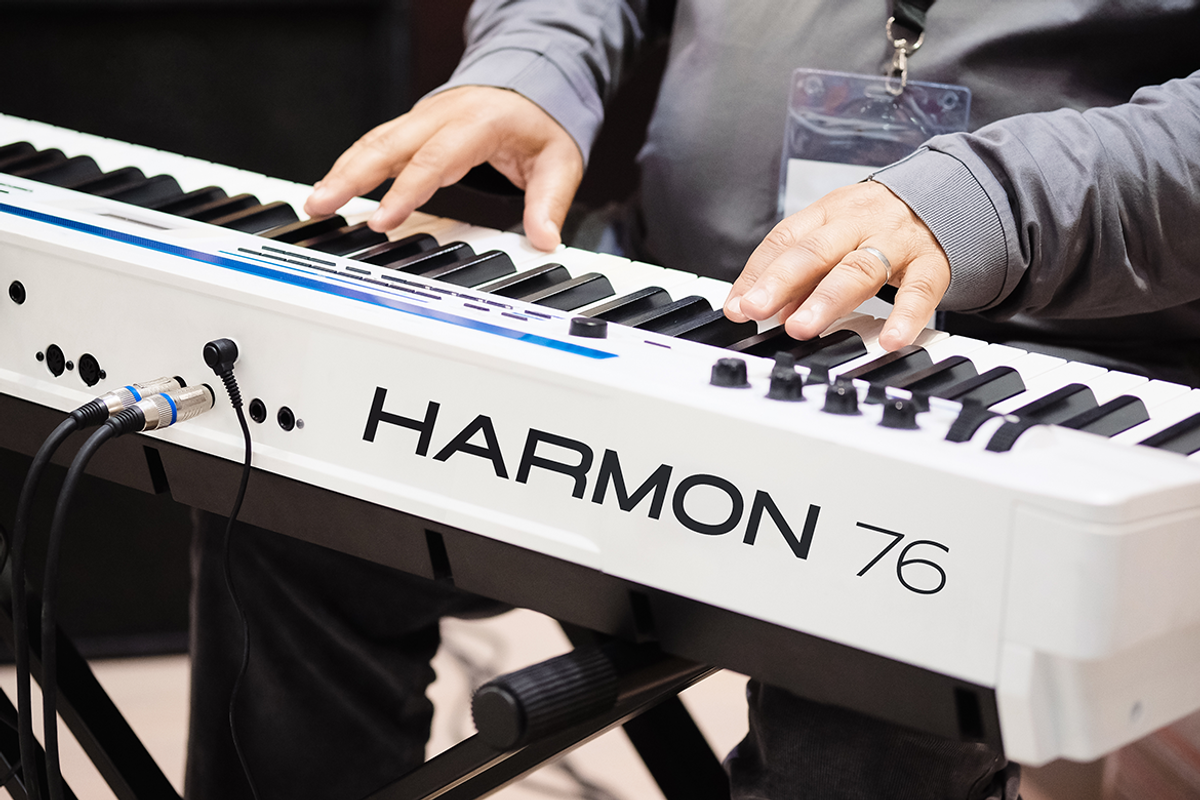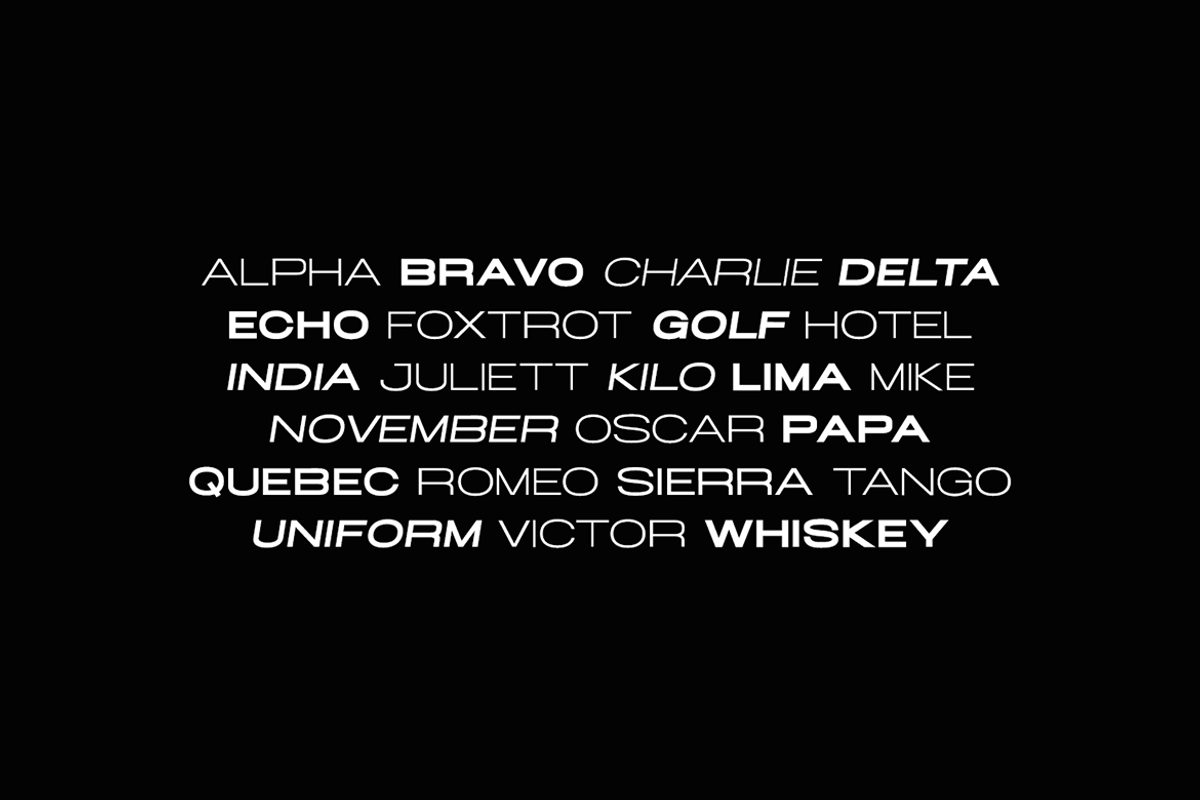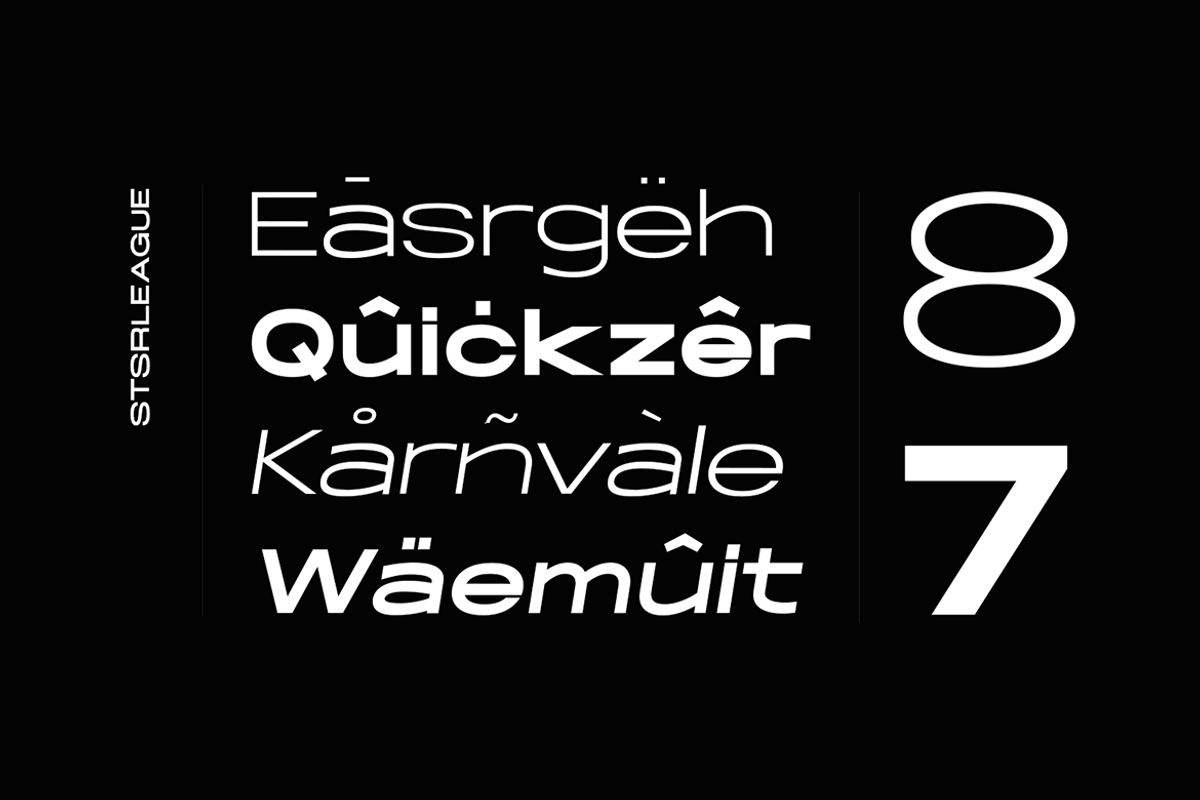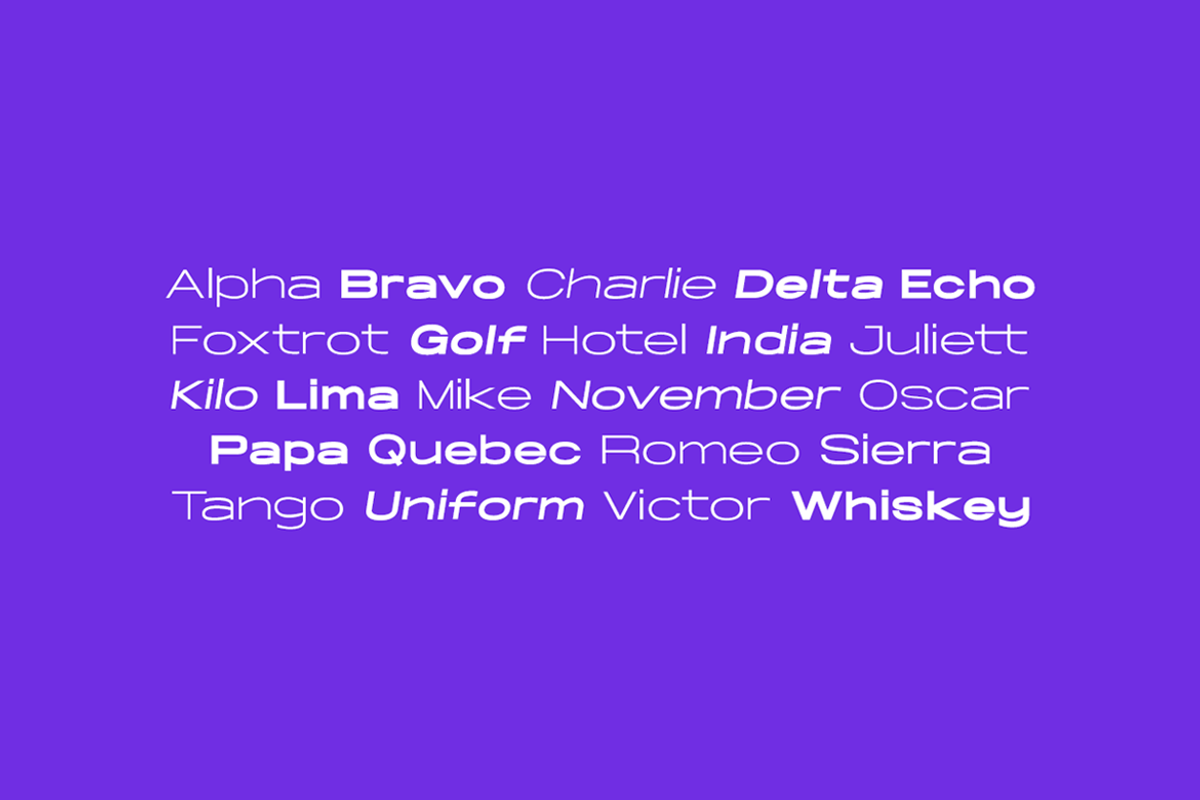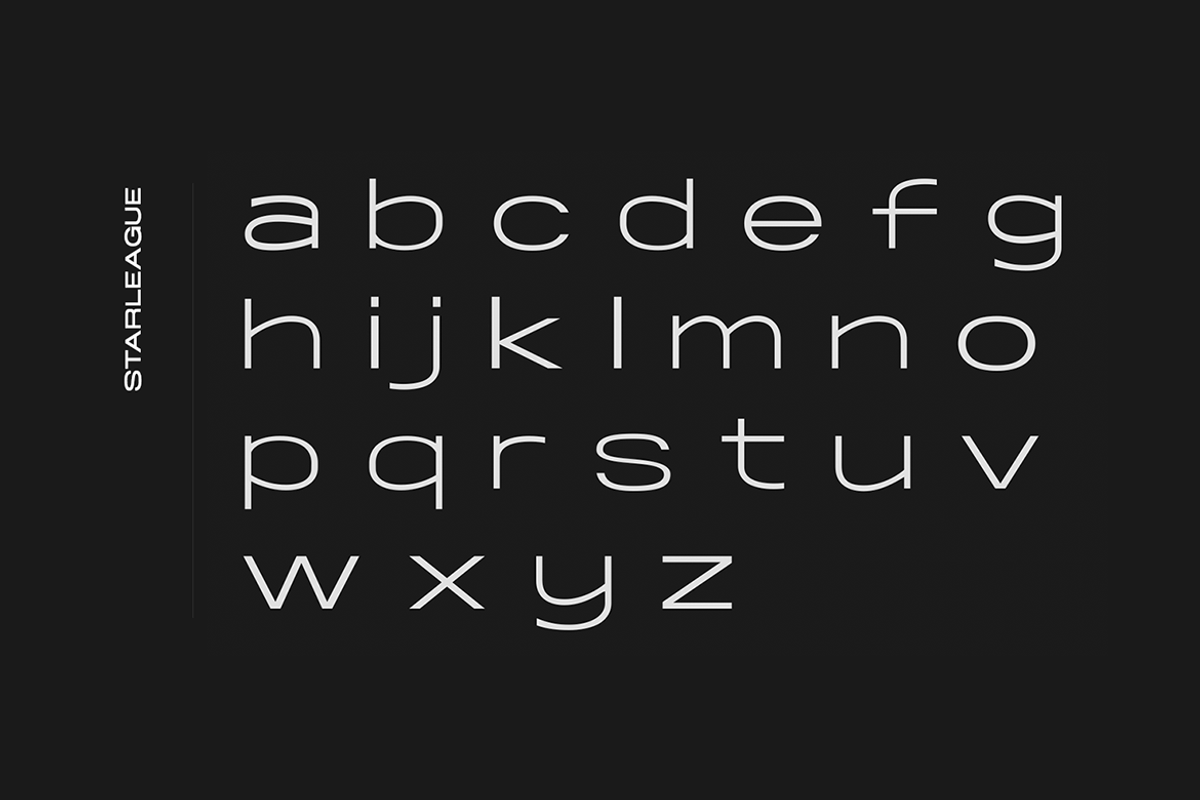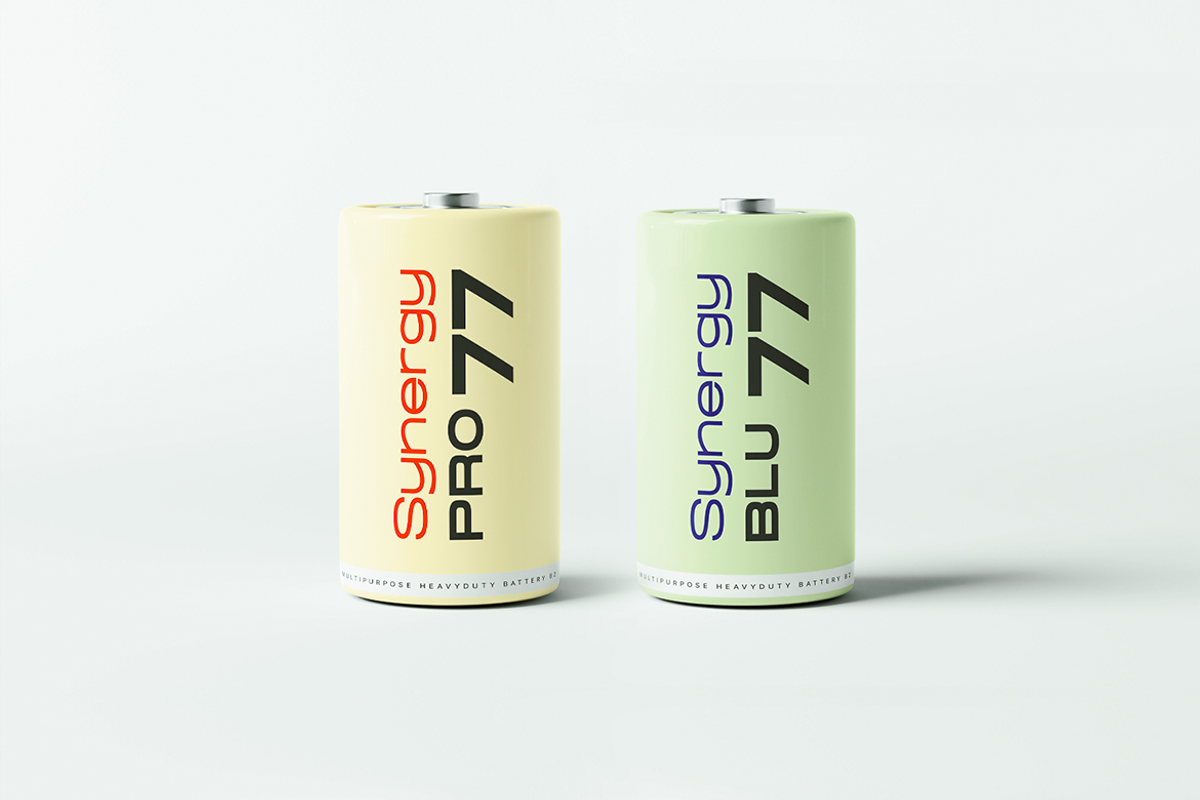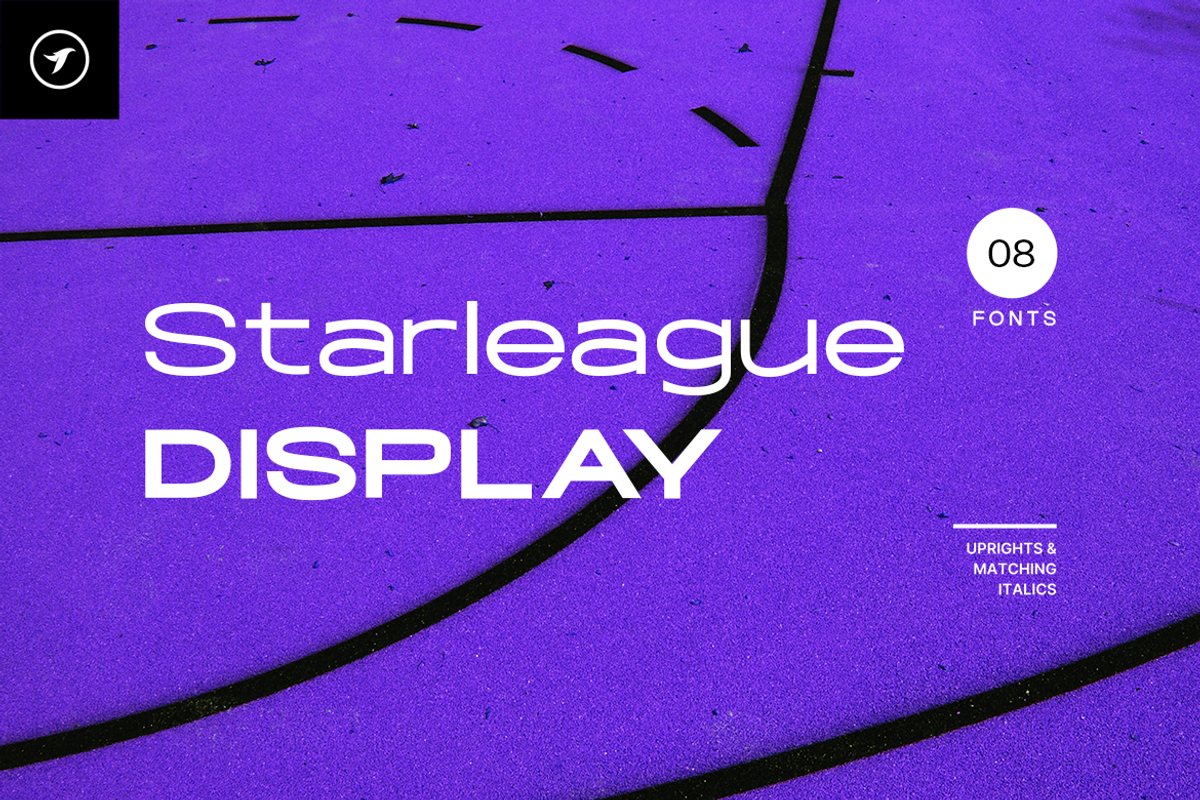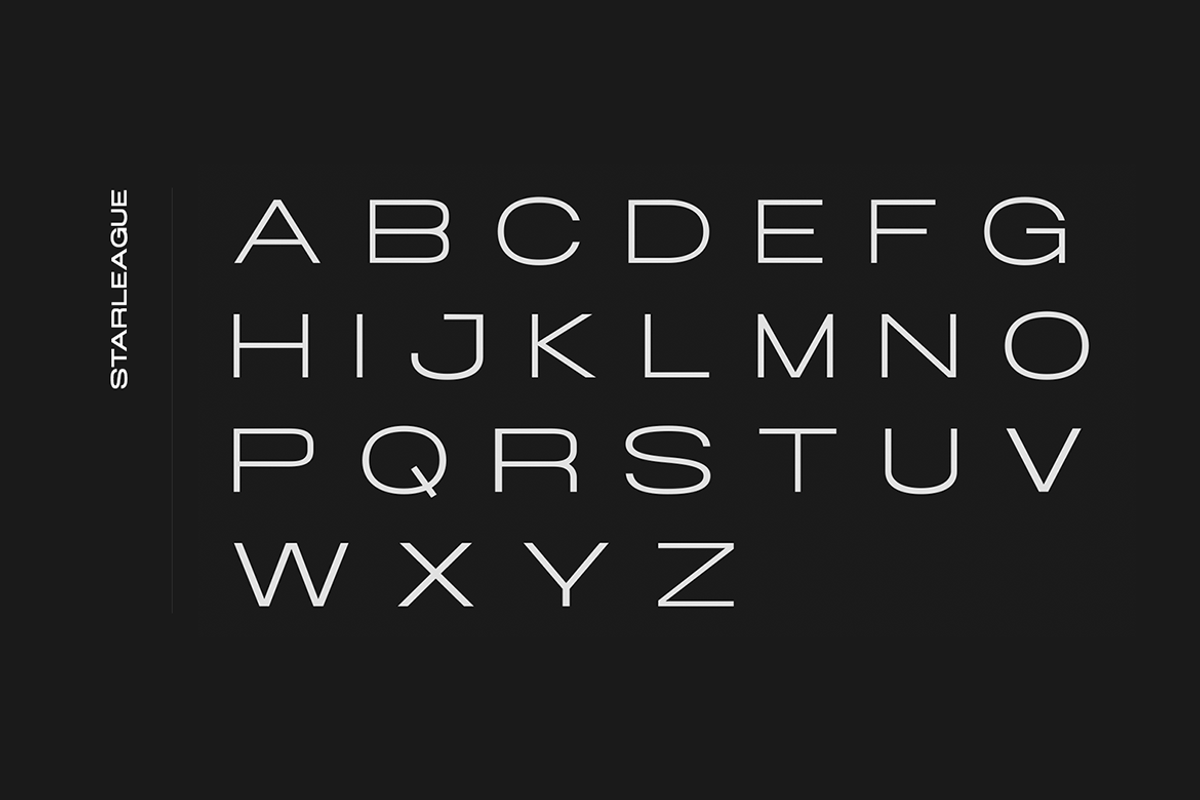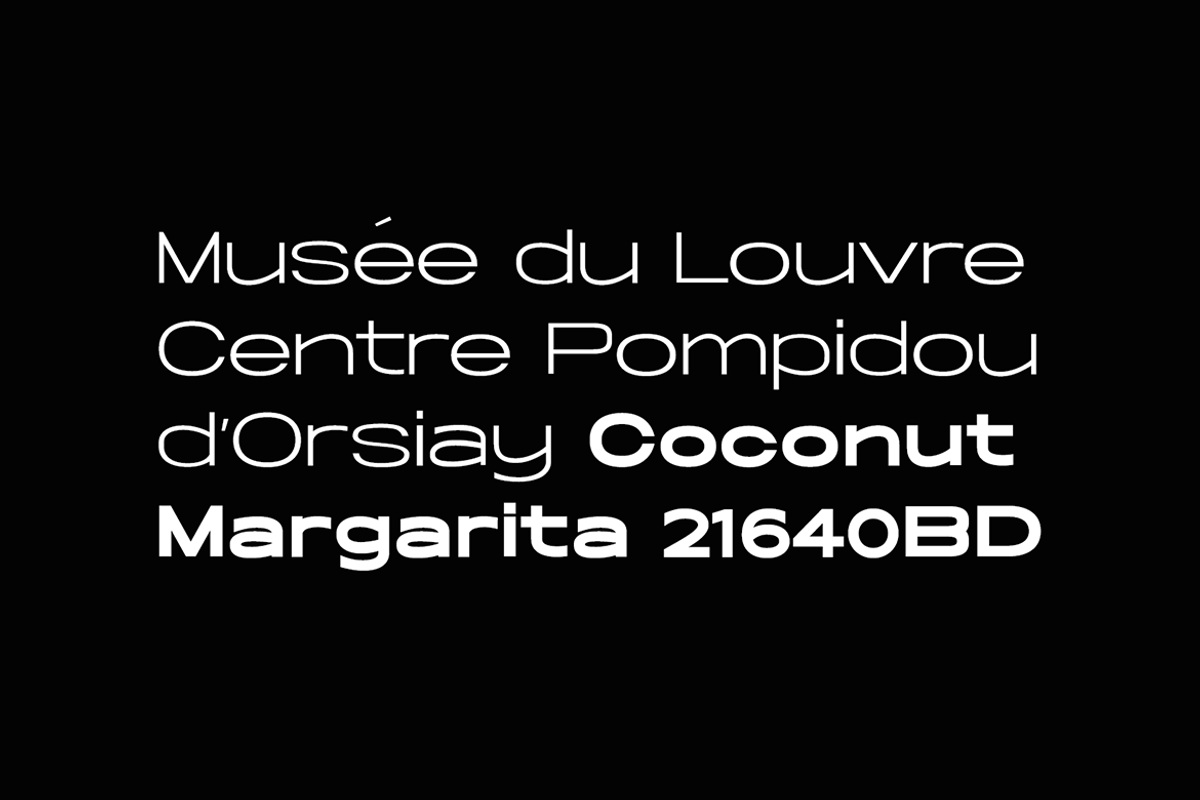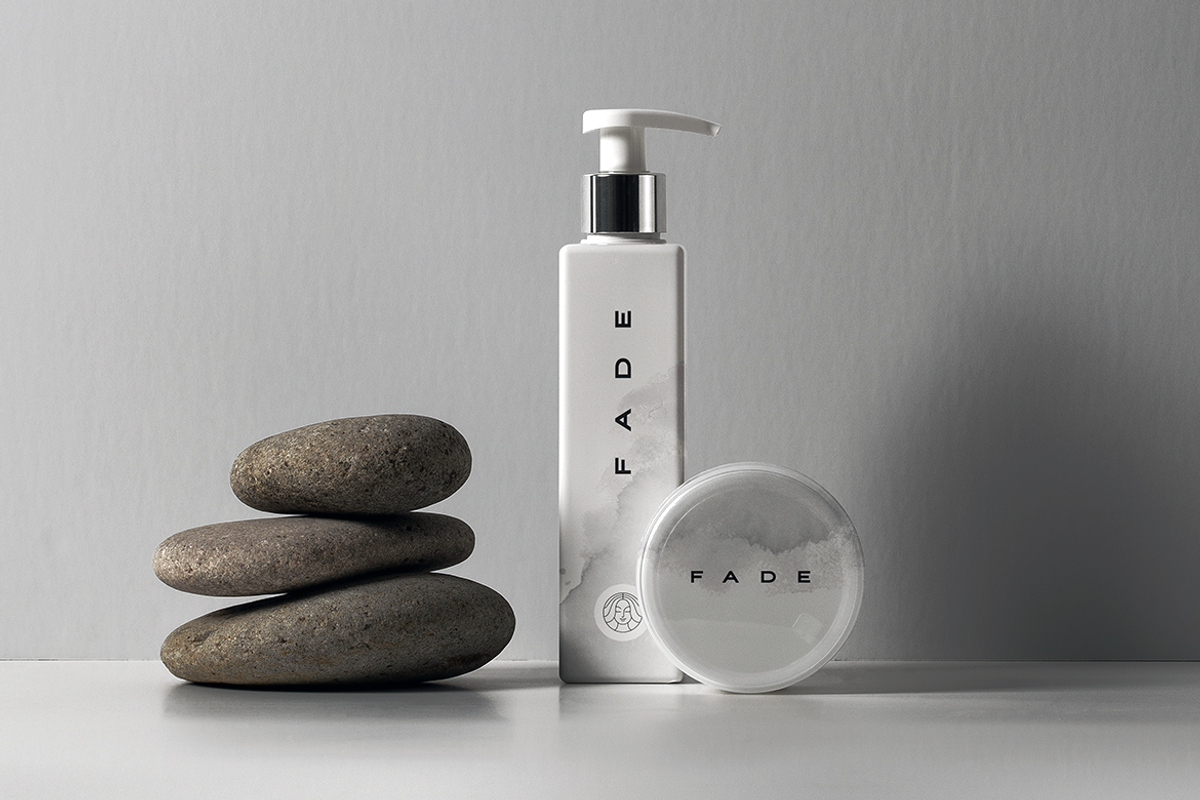
STARLEAGUE - The Display Font Family
ABOUT THE FONT FAMILY:
STARLEAGUE is a unique sans-serif font family that can be the perfect choice for branding, logotypes, and display purposes. It is especially suitable for creating bold and headline typography, exceptional logos, promotional content, and marketing graphics that can capture your visitors' attention. By adjusting the letterspacing of the font, you can have more design options for your creative projects. Take a look at the examples above to get a better idea of the potential of this typeface.
The STARLEAGUE family contains a total of 8 fonts featuring five weights with uprights and italics. Each weight includes extended language support including Western European & Central European sets. A total of 350 glyphs are included. The pack contains OTF, and TTF as Desktop fonts, and optional Web Fonts (all EOT, SVG, TTF, WOFF, and WOFF2 formats included) as licensing options
STARLEAGUE font family includes a collection of 8 fonts in total, with four upright weights and Italic equivalents of all four weights as follows:
Light
Light Italic
Italic
Bold
Bold Italic
Black
Black Italic
Handcrafted and designed with powerful OpenType features in mind, each weight includes extensive language support with Western European, Central European, and South Eastern European sets. A total of 328 glyphs are available.